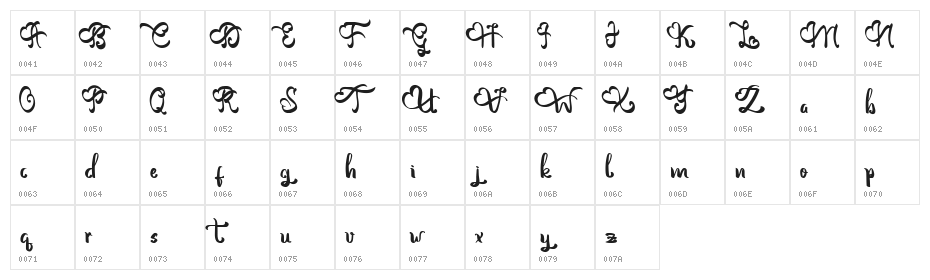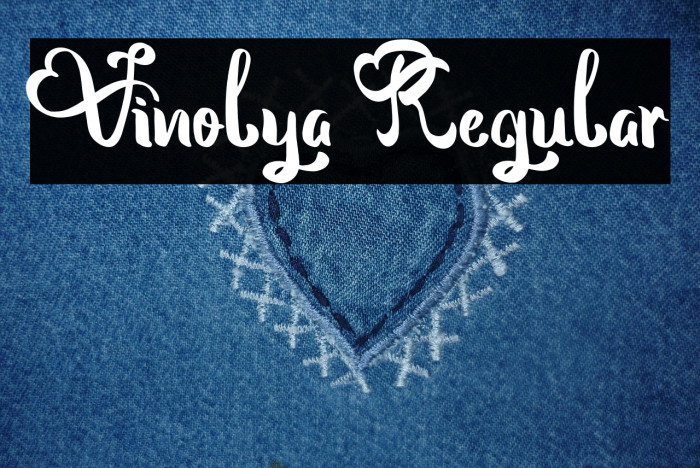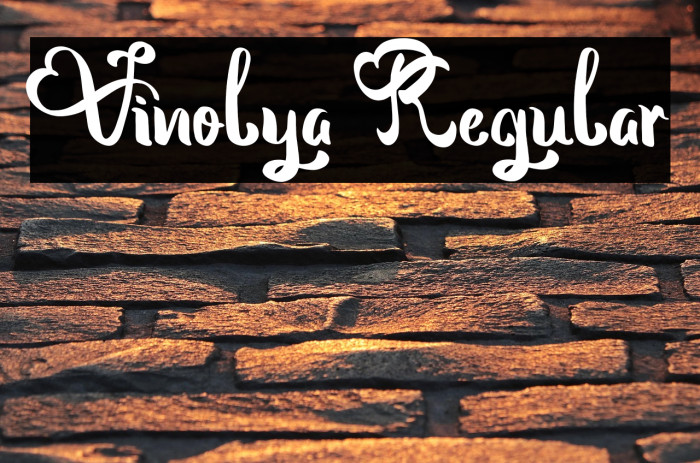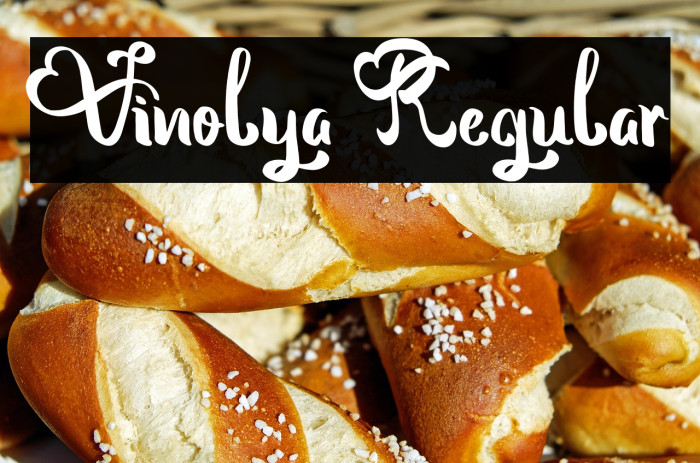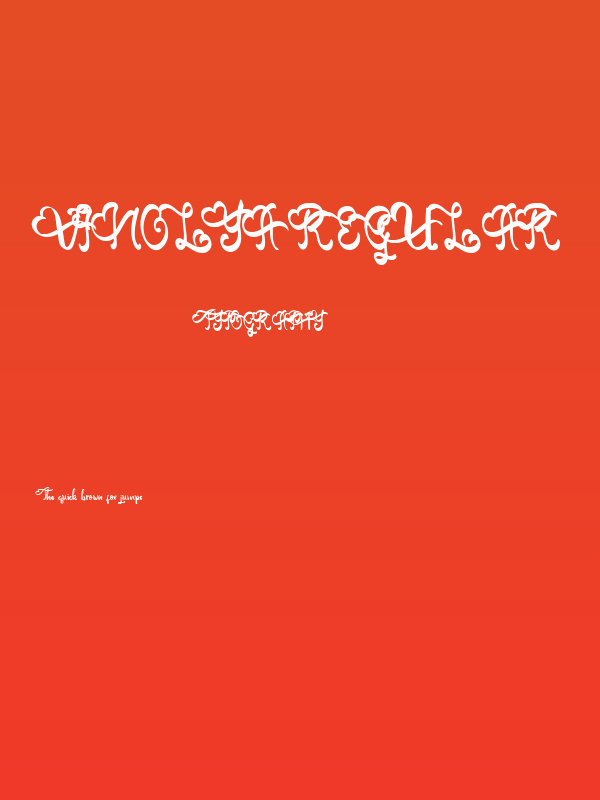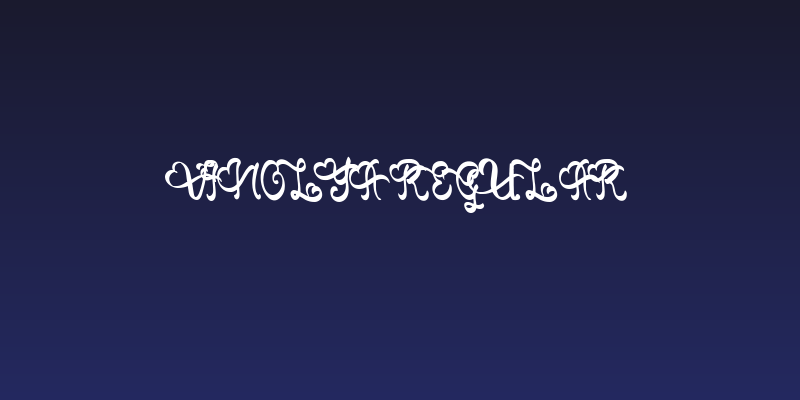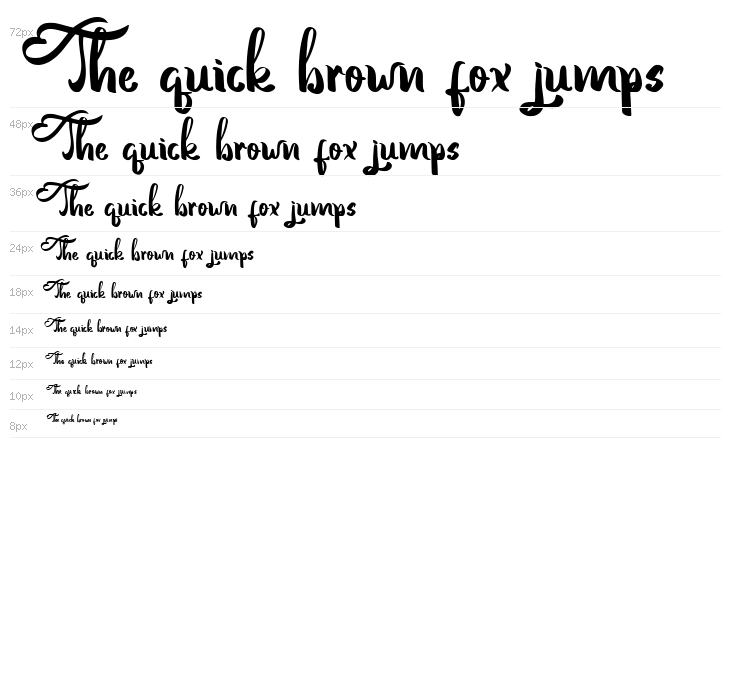
Vinolya Regular Font
Vinolya Regular Description
This font features an intricate and decorative script style, characterized by elaborate swirls and loops that give it a whimsical and artistic appearance. The uppercase letters are particularly ornate, with each character displaying unique flourishes that create a sense of movement and elegance. The lowercase letters, while slightly less embellished, maintain a consistent style with smooth curves and a playful touch. The numbers and special characters follow the same design principles, ensuring a cohesive look across all elements. This font is ideal for projects that require a touch of sophistication and creativity.
| Proposed Projects | Ideal for wedding invitations, greeting cards, branding, and artistic projects that require a sophisticated and whimsical touch. |